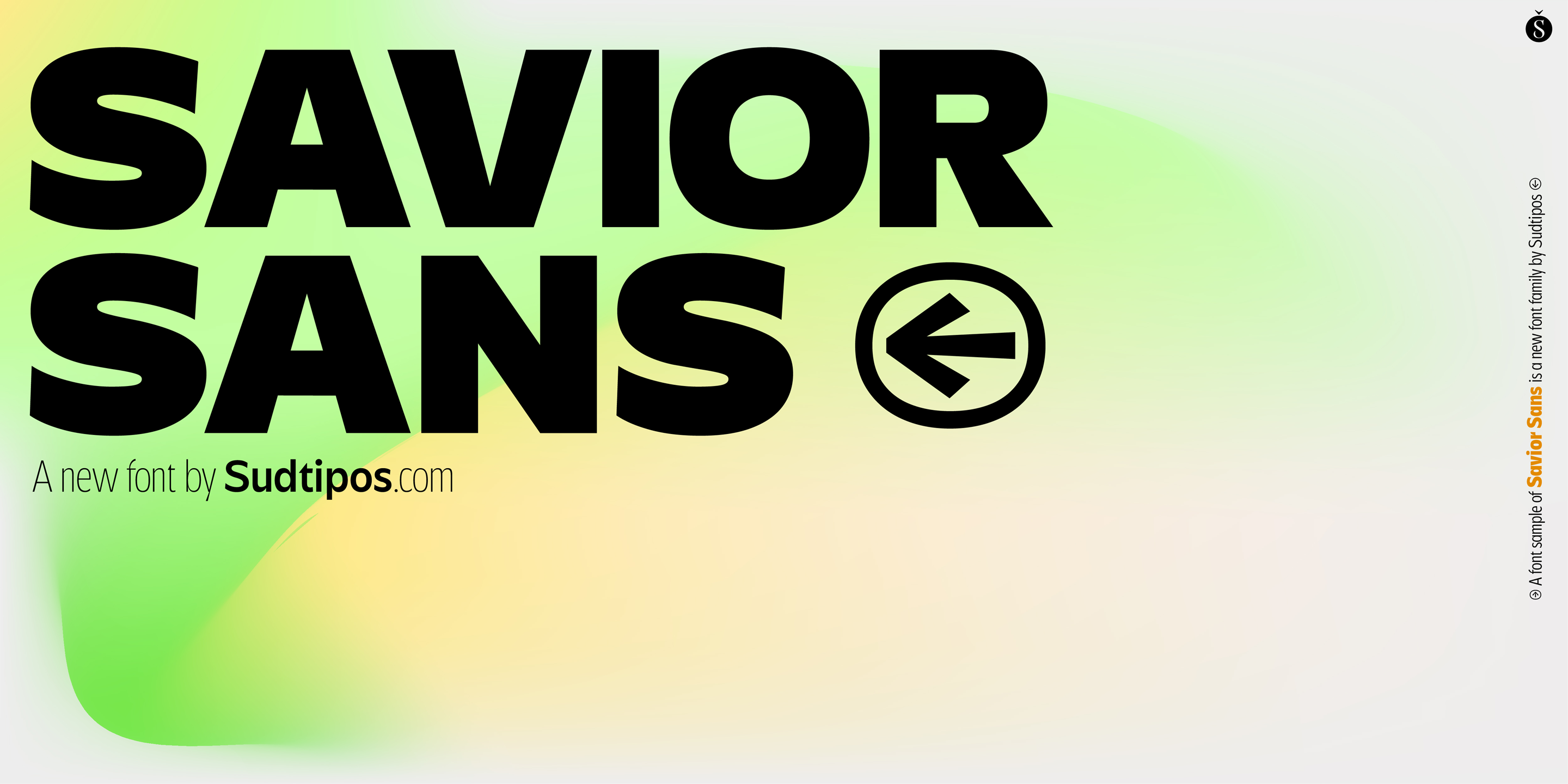
Savior Sans Font is perfect for modern web design, mobile applications, corporate branding, minimalist logos, tech startup identities, user interface design, signage systems, editorial layouts, presentation slides, business cards, and contemporary advertising campaigns.
Savior Sans Font is exciting because it represents the future of typography with its clean, geometric structure and exceptional legibility across all digital platforms. Its carefully engineered letterforms provide outstanding readability at any size, while its modern aesthetic appeals to today's design-conscious audiences seeking fresh, professional typography solutions.
Savior Sans Font family includes thin, light, regular, medium, bold, and black weights, each with corresponding italic versions. The comprehensive font family also features extended Latin character sets, numerals, punctuation marks, and special symbols that support international design projects.
This cutting-edge sans serif typeface embodies contemporary design principles while maintaining timeless functionality. Savior Sans Font Free Download allows designers to experience its versatility before making a commercial investment. The font's neutral yet distinctive character makes it an ideal choice for brands seeking to establish a modern, trustworthy identity.
Whether you're developing a tech startup's visual identity, designing a corporate website, or creating user interface elements, Savior Sans Font delivers consistent performance across all media. Its geometric precision and humanist touches create the perfect balance between technical accuracy and approachable warmth.
The font's versatility shines in both display and text applications. Its clean architecture ensures excellent readability in body text, while its strong presence makes headlines and titles impactful. The careful spacing and proportions contribute to improved user experience in digital environments.
For designers prioritizing functionality without sacrificing style, Savior Sans Font represents an exceptional solution. Its comprehensive weight range and extensive character support provide the tools needed for complex branding systems, while its modern aesthetic ensures your projects remain current and engaging in today's competitive marketplace.